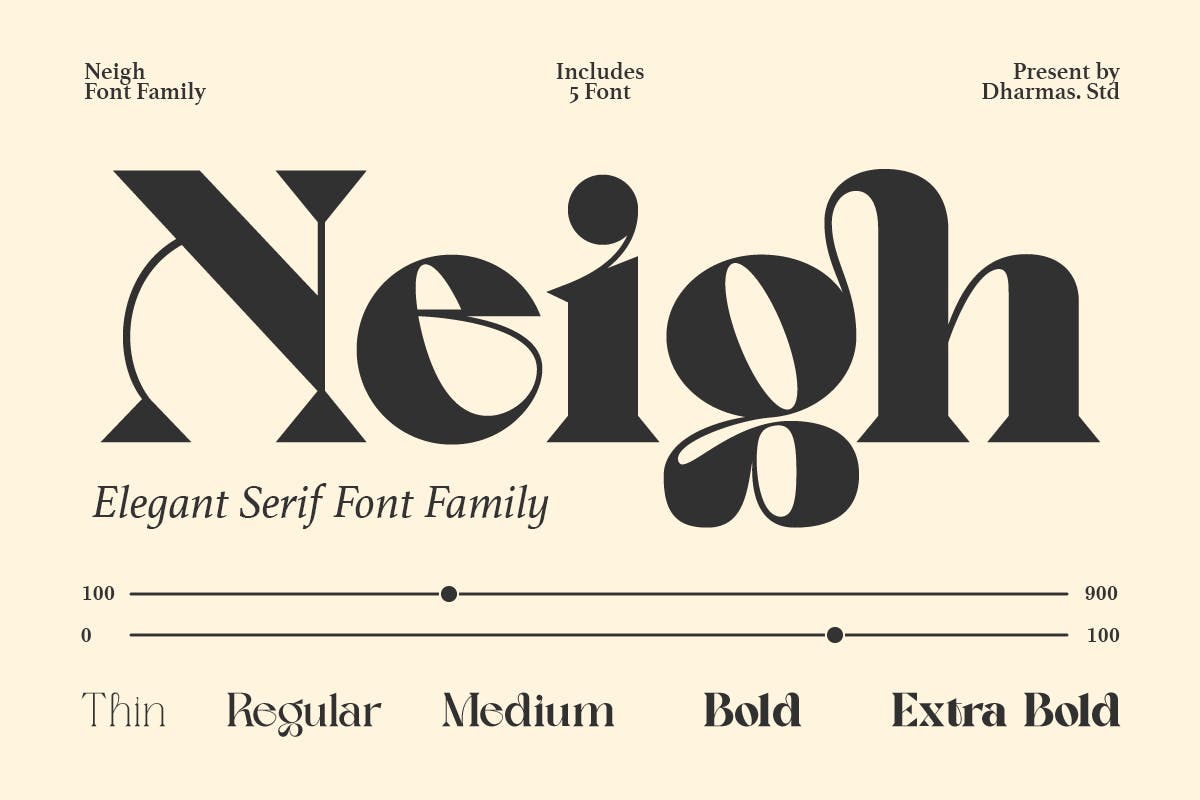
Neigh - Modern Luxury Logo Font
Neigh - Modern Luxury Logo Font Free Download offers a perfect combination of modern elegance and timeless sophistication, designed for upscale branding. For commercial use, you must purchase this font, but you can download it for free for testing purposes. This versatile typeface is ideal for a wide range of projects, including high-end branding, fashion logos, luxury product packaging, hotel branding, and editorial design. What makes this font so exciting is its unique ability to blend clean, confident lines with elegant proportions, creating a look that is both professional and effortlessly chic. The Neigh font family includes a range of weights, such as Light, Regular, and Bold, along with a variety of ligatures and stylistic alternates, providing you with a complete and flexible design solution for any creative need.
This isn’t just a font; it’s a statement of refined taste. The design of Neigh - Modern Luxury Logo Font is inspired by minimalist aesthetics and a desire for timeless, sophisticated branding. Its distinctive, clean look ensures that your logo and titles will be both memorable and highly engaging. Whether you’re a designer crafting a brand identity for a high-end product, a creative working on a sleek magazine layout, or a business looking for a font that conveys luxury and sophistication, this typeface provides the perfect foundation. The carefully crafted letterforms and consistent spacing create a refined flow that is easy on the eyes and aesthetically pleasing in any context.
The versatility of the Neigh font family is one of its greatest strengths. You can use the light weight for an airy, elegant feel, the regular weight for a balanced and versatile look, and the bold weight for headlines that stand out with a confident, modern presence. This flexibility makes it an invaluable asset for designers who need to create custom content that feels both contemporary and timeless. Its minimalist yet stylish character ensures it works well in a variety of design contexts, from digital interfaces to printed materials. It's a font that works hard, delivering a look that is both stylish and full of character, ensuring your designs always make a sophisticated impression.